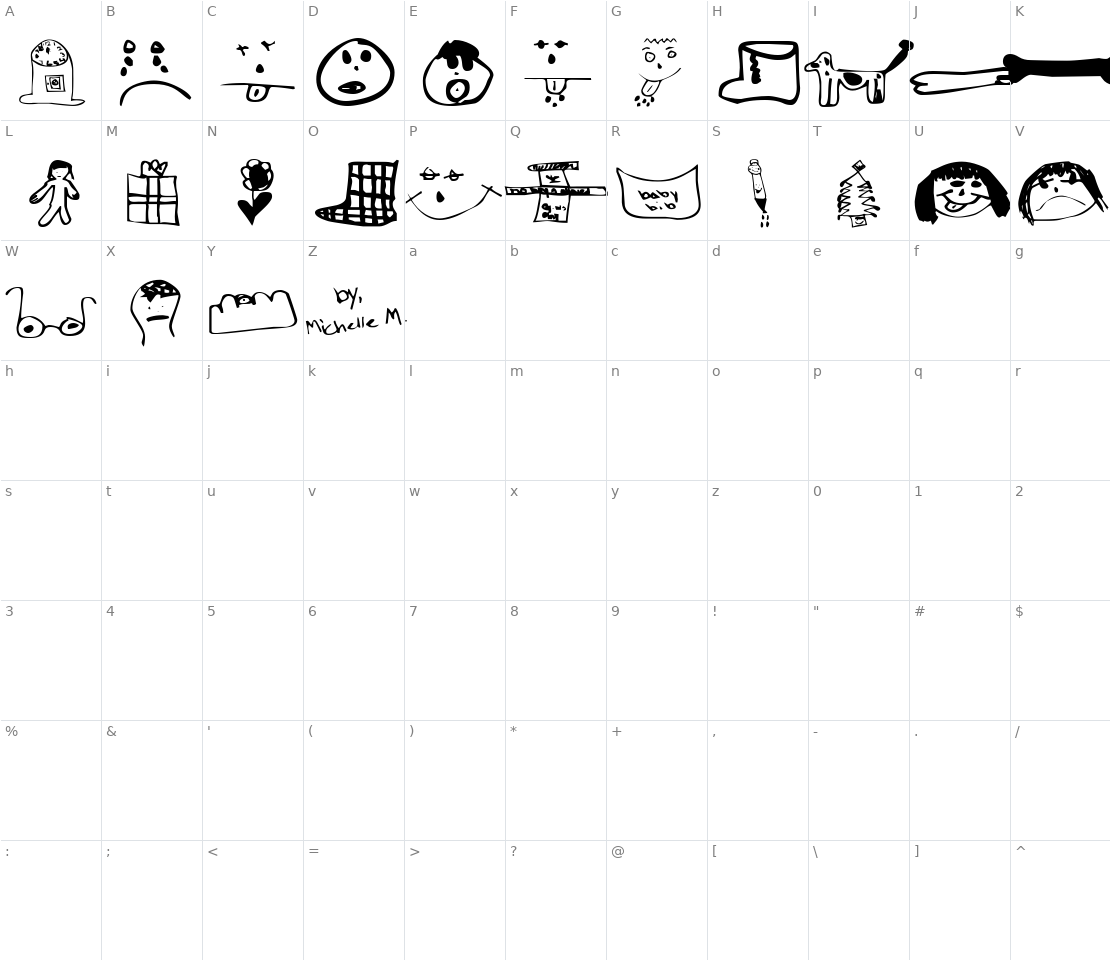
Little Sister Dingbats
Little Sister Dingbats is a hand-drawn symbol font from GregoryFonts filled with quirky, childlike icons that look sketched out in crayon or felt-tip pen. The illustrations have a loose, whimsical quality that feels genuinely kid-made rather than polished, making them a natural companion for children's projects, informal invitations, or adding playful visual breaks to layouts.